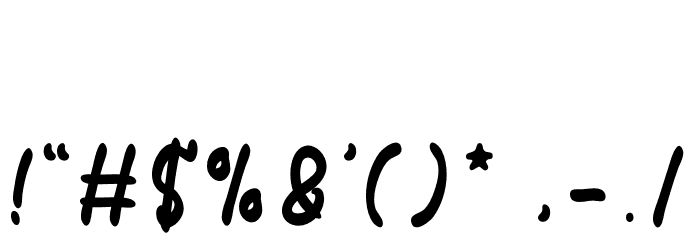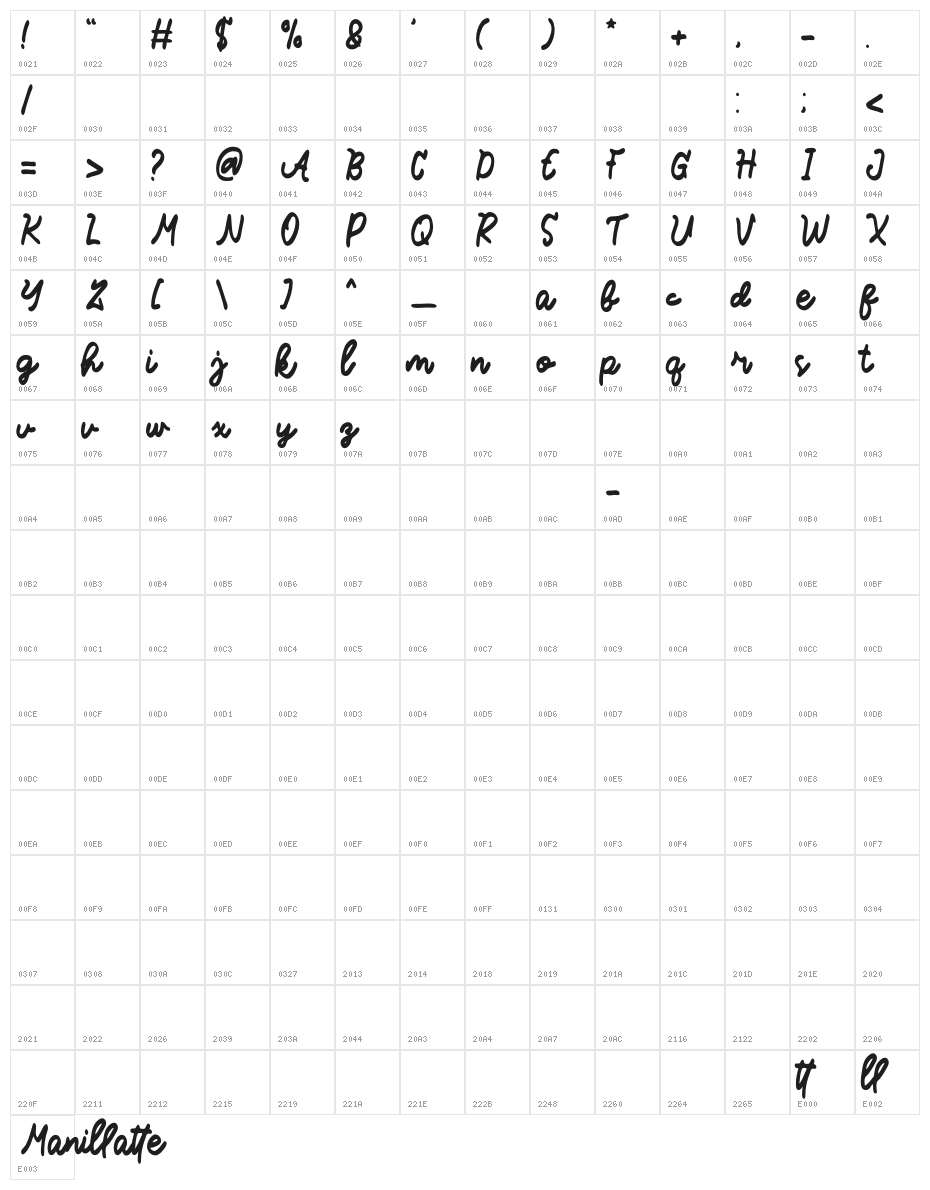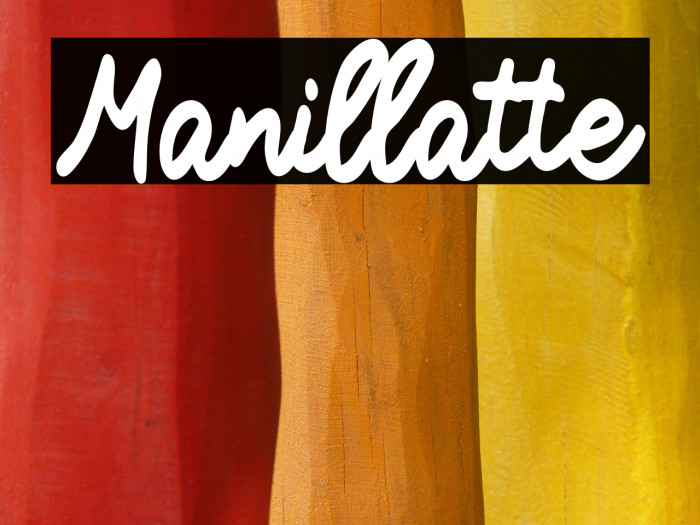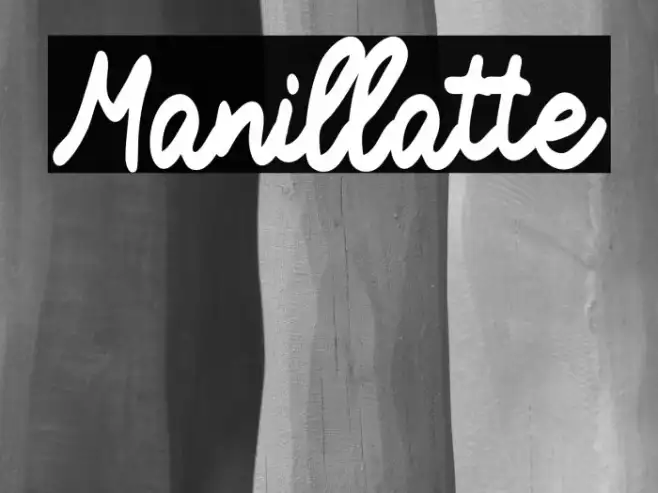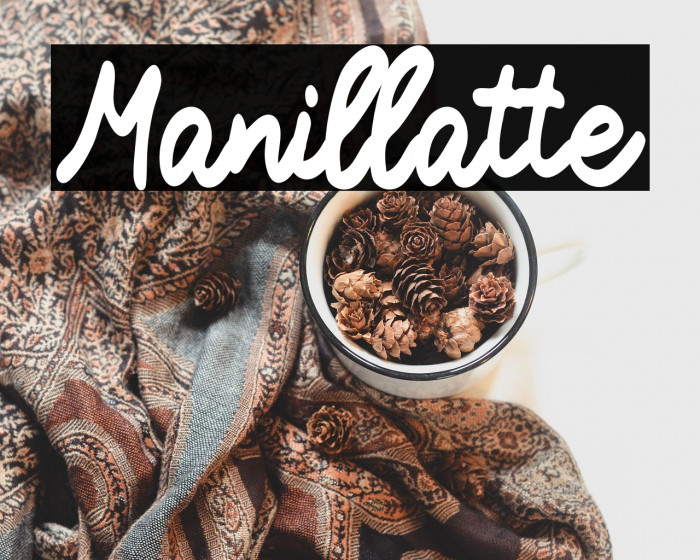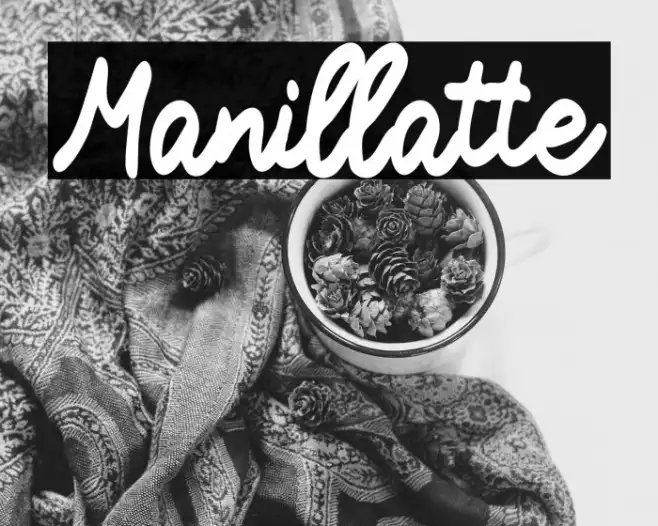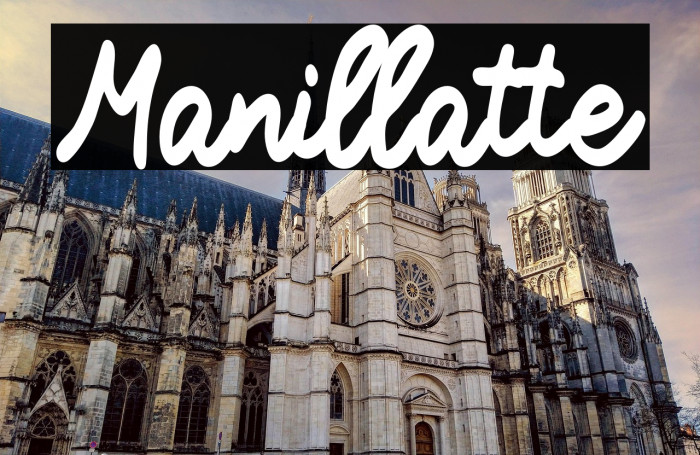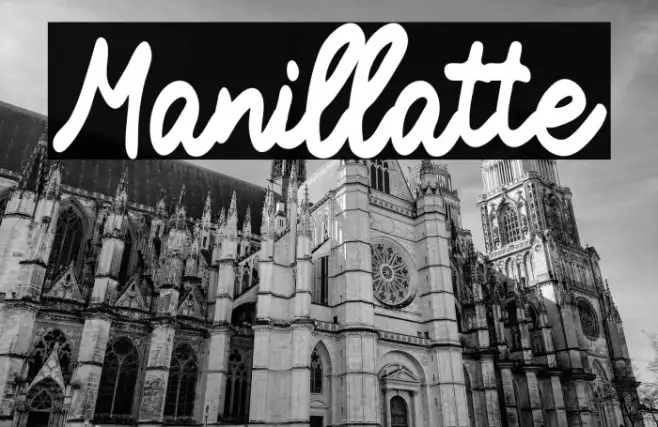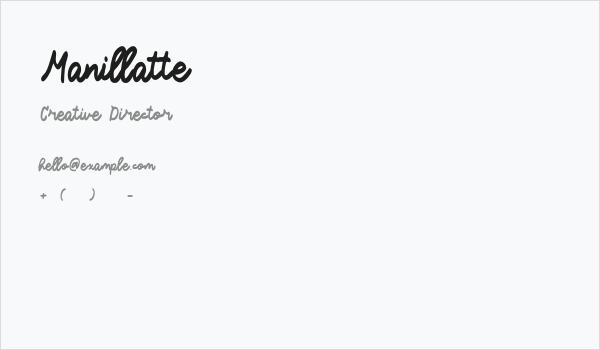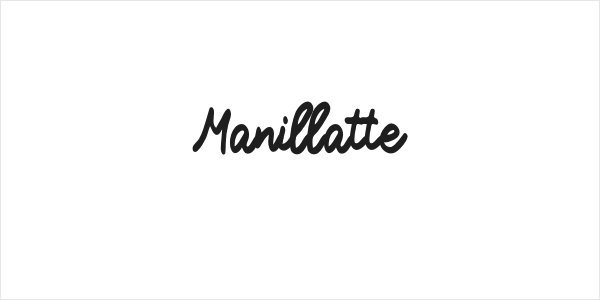
Manillatte Font
Manillatte Description
This font features a playful and dynamic script style with a handwritten appearance. The uppercase letters are slightly slanted and maintain a consistent flow, while the lowercase letters are more connected, creating a cursive effect. The strokes are bold and rounded, giving the font a friendly and approachable feel. The special characters are designed to match the overall style, ensuring cohesion across all elements. This font's unique charm makes it suitable for projects that require a personal touch.
| Proposed Projects | Ideal for greeting cards, invitations, branding, and social media graphics. |